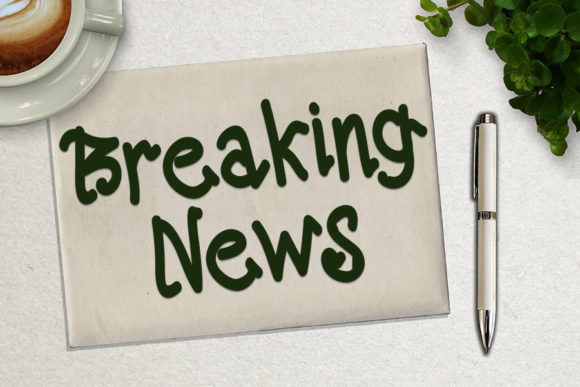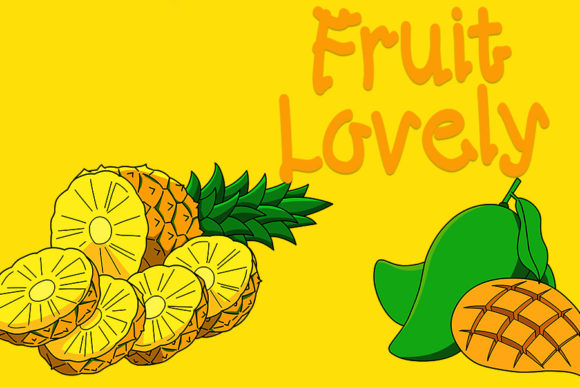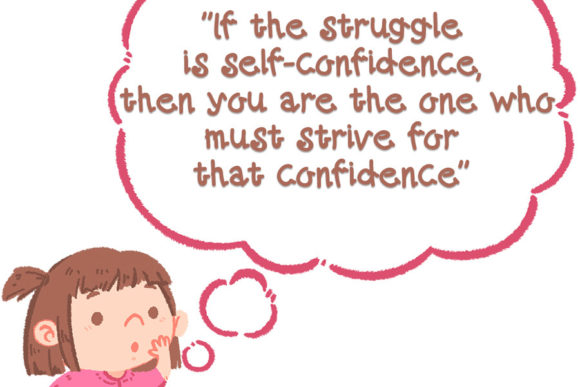
Introducing Dimsop Font: The Quirky and Playful Display Font for Creative Designs
Are you tired of using the same old fonts for your designs? Do you want to add a touch of playfulness and whimsy to your projects? Look no further than Dimsop Font, a uniquely designed, quirky, and informal display font that’s perfect for school projects, kids-related designs, and more.
What is Dimsop Font?
Dimsop Font is a one-of-a-kind display font that’s designed to add a dash of fun and personality to your designs. With its quirky and informal style, it’s ideal for projects that require a playful touch, such as:
• School projects: Add a fun and youthful vibe to school posters, presentations, and worksheets.
• Kids-related designs: Create engaging and interactive designs for kids, such as children’s book illustrations, nursery rhymes, or kids’ party invitations.
• Playful branding: Use Dimsop Font to create a fun and approachable brand identity for your business or product.
Key Features of Dimsop Font
So, what makes Dimsop Font so special? Here are some of its key features:
• Unique design: Dimsop Font has a distinctive and quirky design that’s sure to grab attention.
• Playful style: The font’s informal style is perfect for adding a touch of playfulness to your designs.
• Display font: Dimsop Font is designed specifically for display purposes, making it perfect for headlines, titles, and other prominent text elements.
• Easy to read: Despite its quirky design, Dimsop Font is easy to read, even at smaller sizes.
How to Use Dimsop Font in Your Designs
• Use for headlines and titles: Use Dimsop Font for headlines and titles to add a touch of playfulness and whimsy to your design.
• Experiment with colors: Dimsop Font looks great in bright, bold colors. Experiment with different colors to add more personality to your design.
Benefits of Using Dimsop Font
So, why should you use Dimsop Font in your designs? Here are some benefits:
• Adds personality: Dimsop Font adds a touch of personality and whimsy to your designs, making them more engaging and interactive.
• Perfect for kids-related designs: The font’s playful style makes it perfect for kids-related designs, such as children’s book illustrations or nursery rhymes.
• Easy to use: Dimsop Font is easy to use and can be paired with a variety of other fonts to create a unique look.
In conclusion, Dimsop Font is a uniquely designed, quirky, and informal display font that’s perfect for adding a touch of playfulness to your designs. With its key features, ease of use, and benefits, it’s an ideal choice for designers and crafters looking to create engaging and interactive designs. So, why not give Dimsop Font a try and add some personality to your designs?